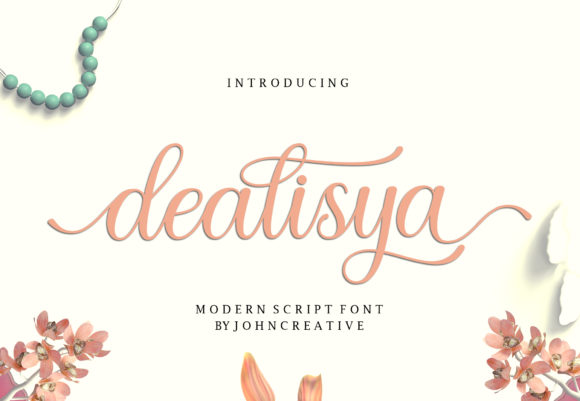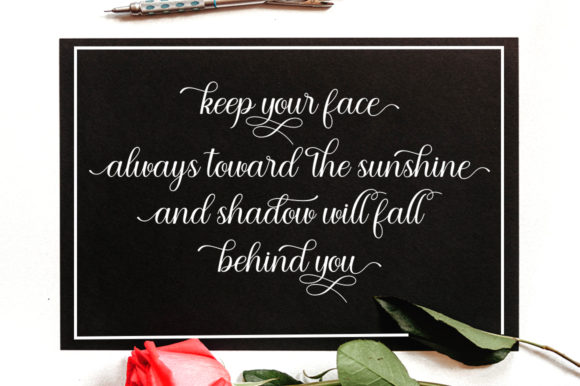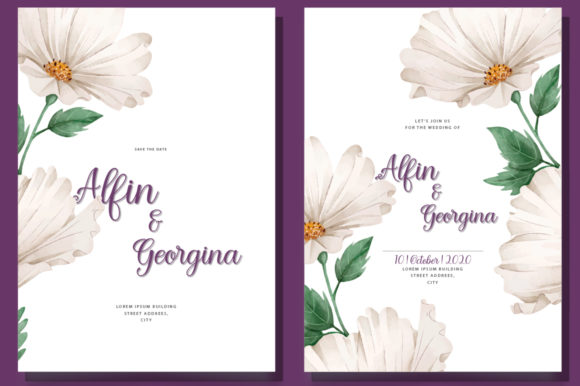
About Dealisya Font
Dealisya is a delicate, elegant, and flowing handwritten font. Add it to your most creative ideas, and notice how it makes them come alive!This font is PUA encoded, which means you can access all of the glyphs and swashes with ease!